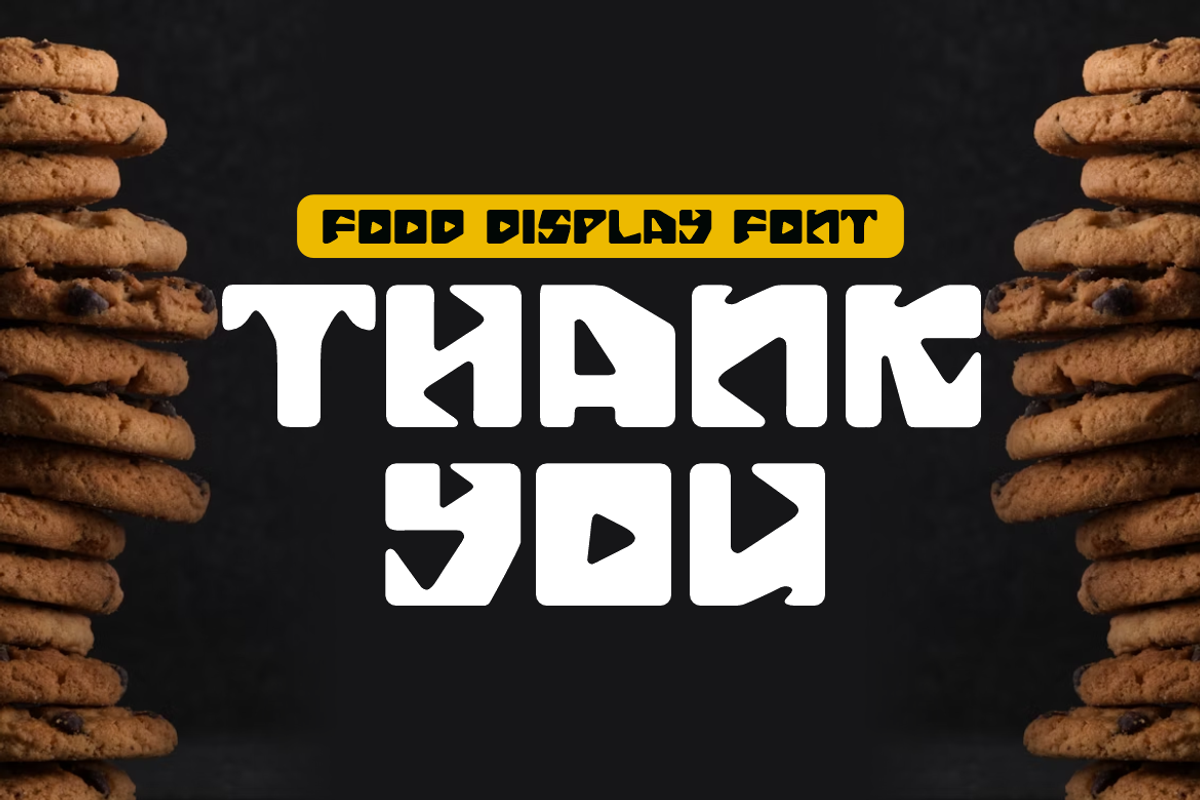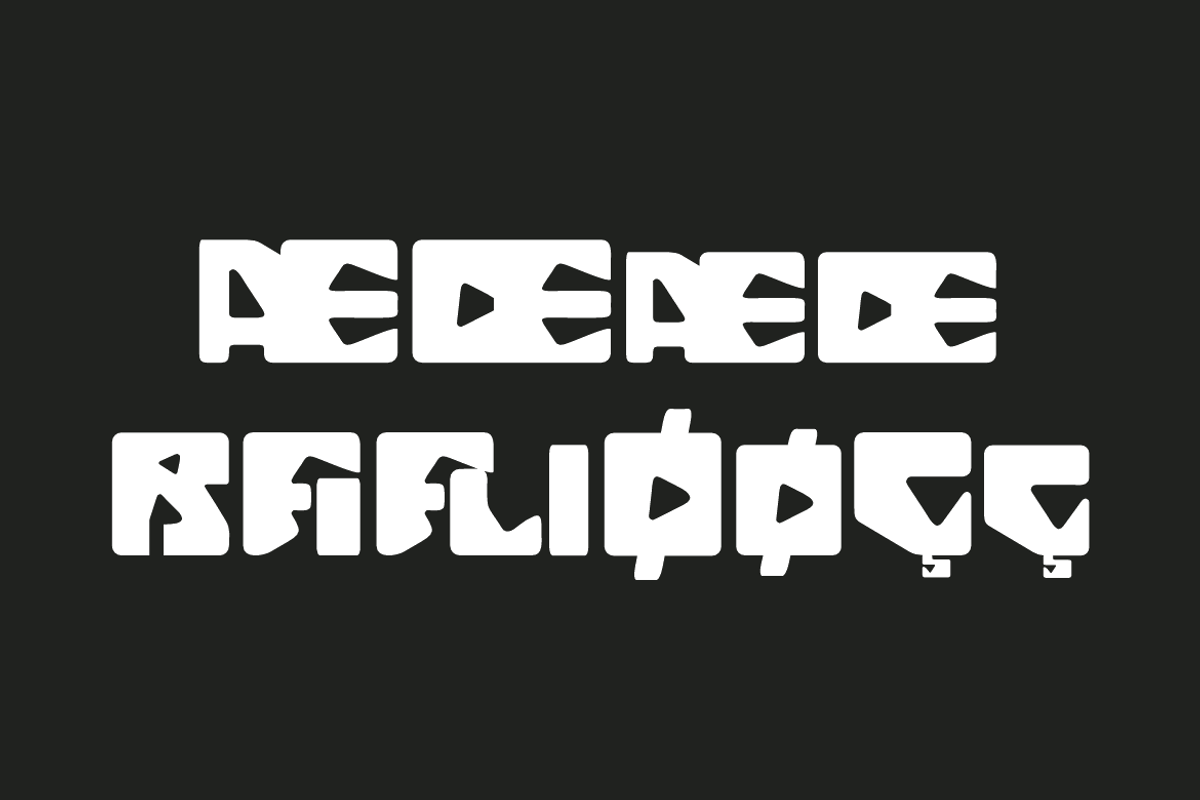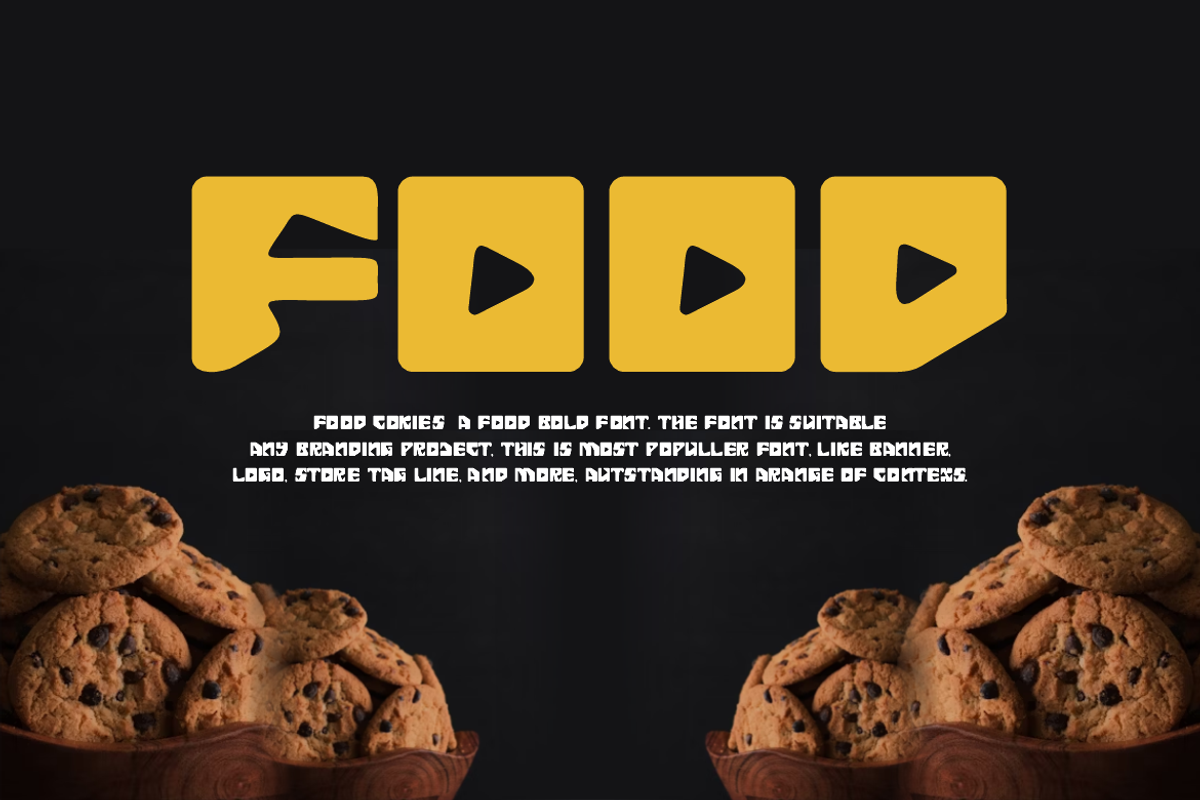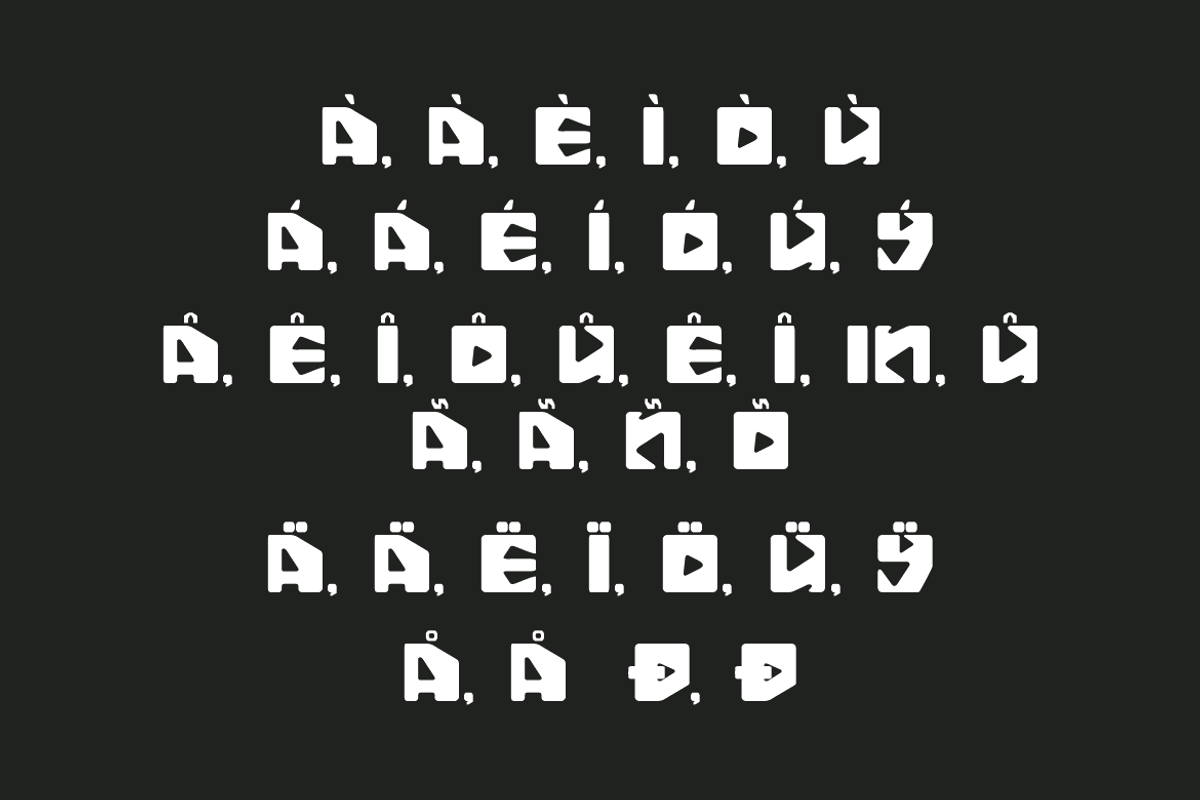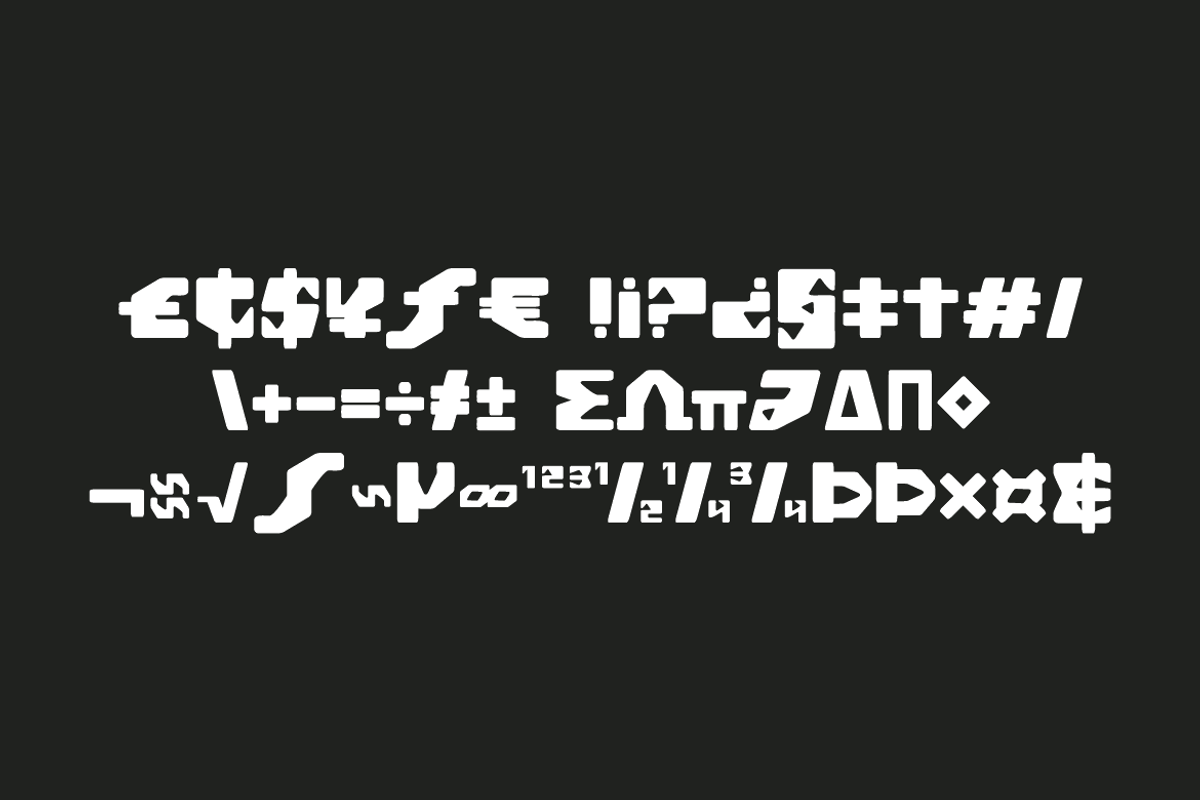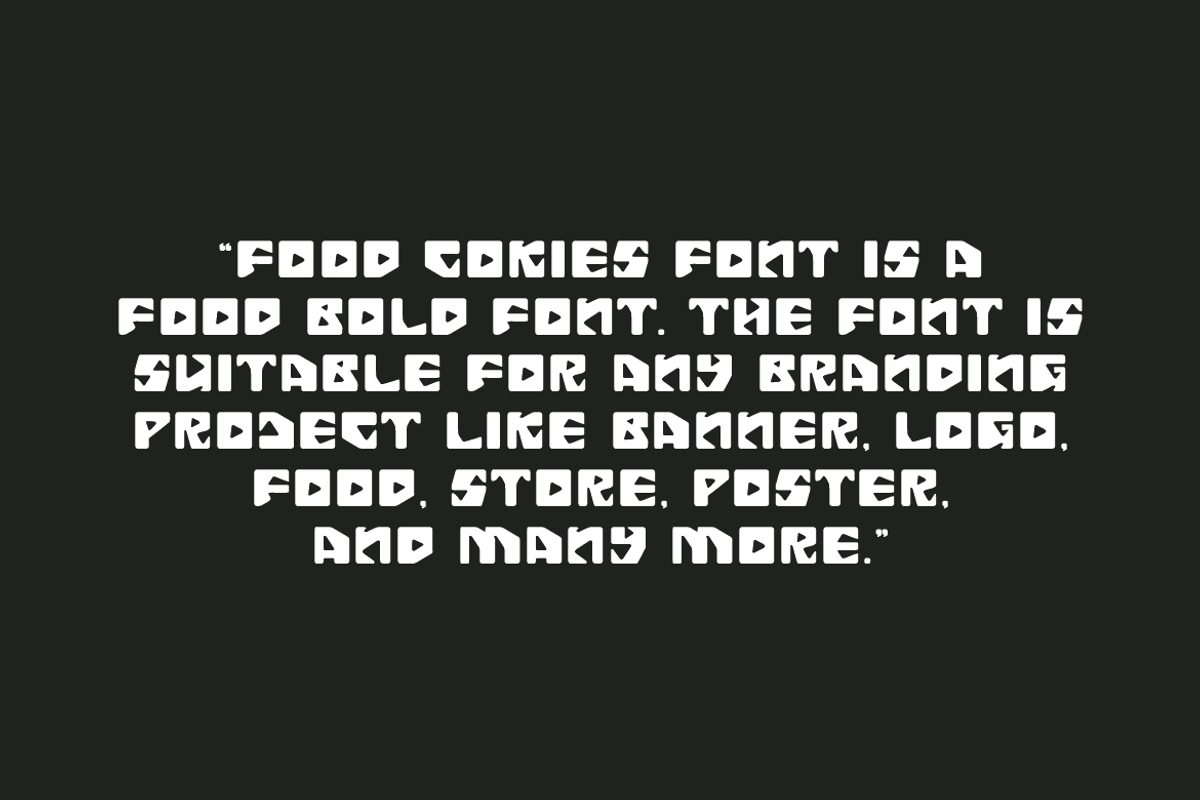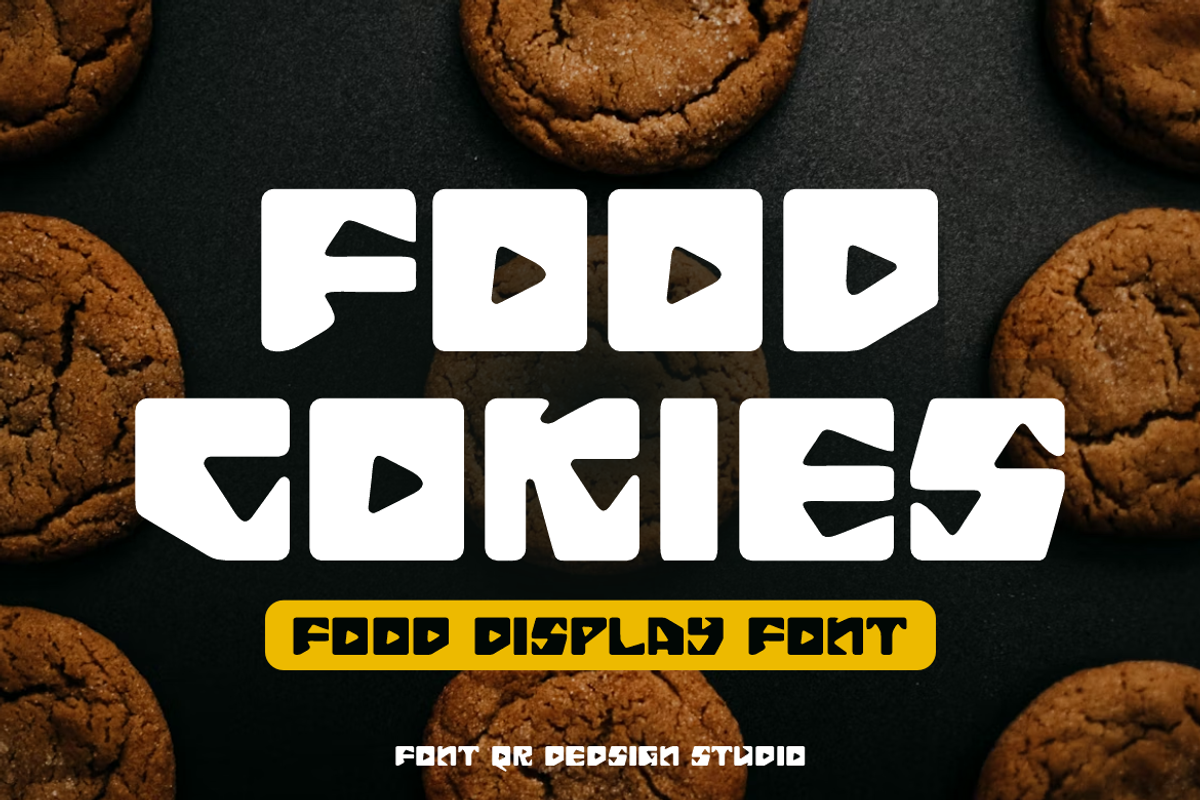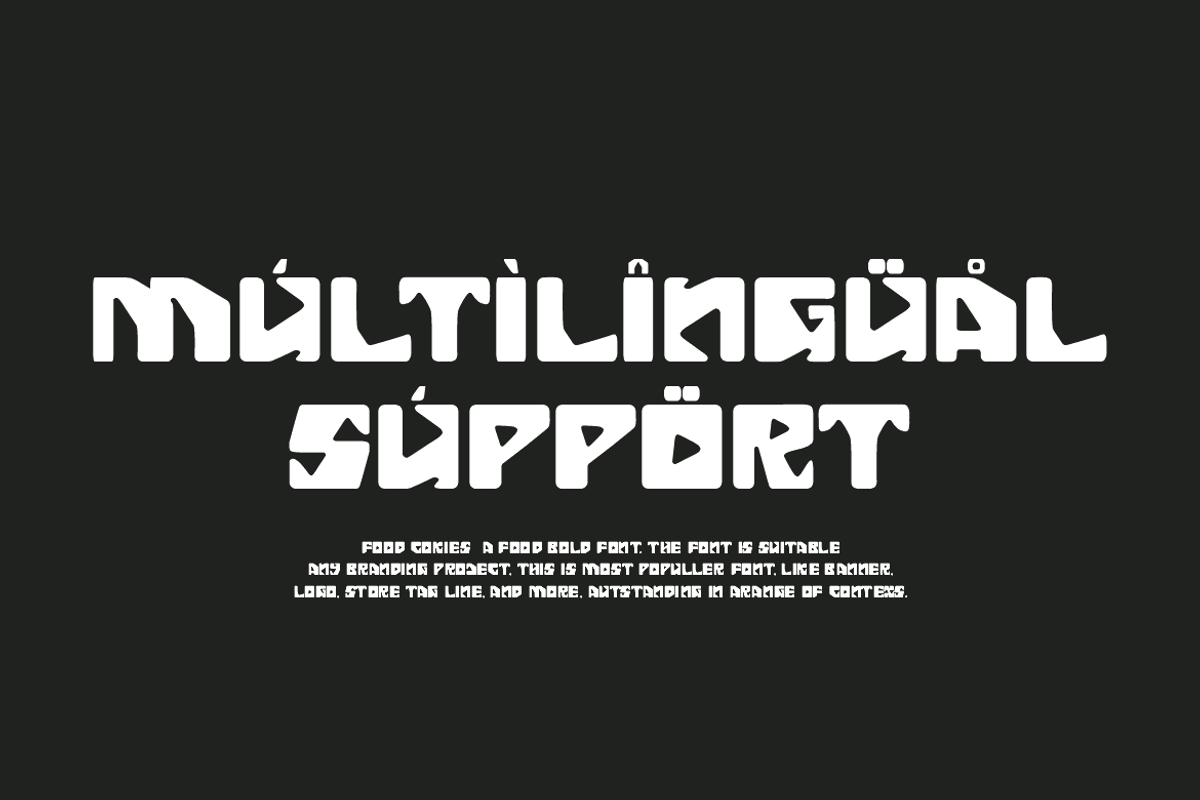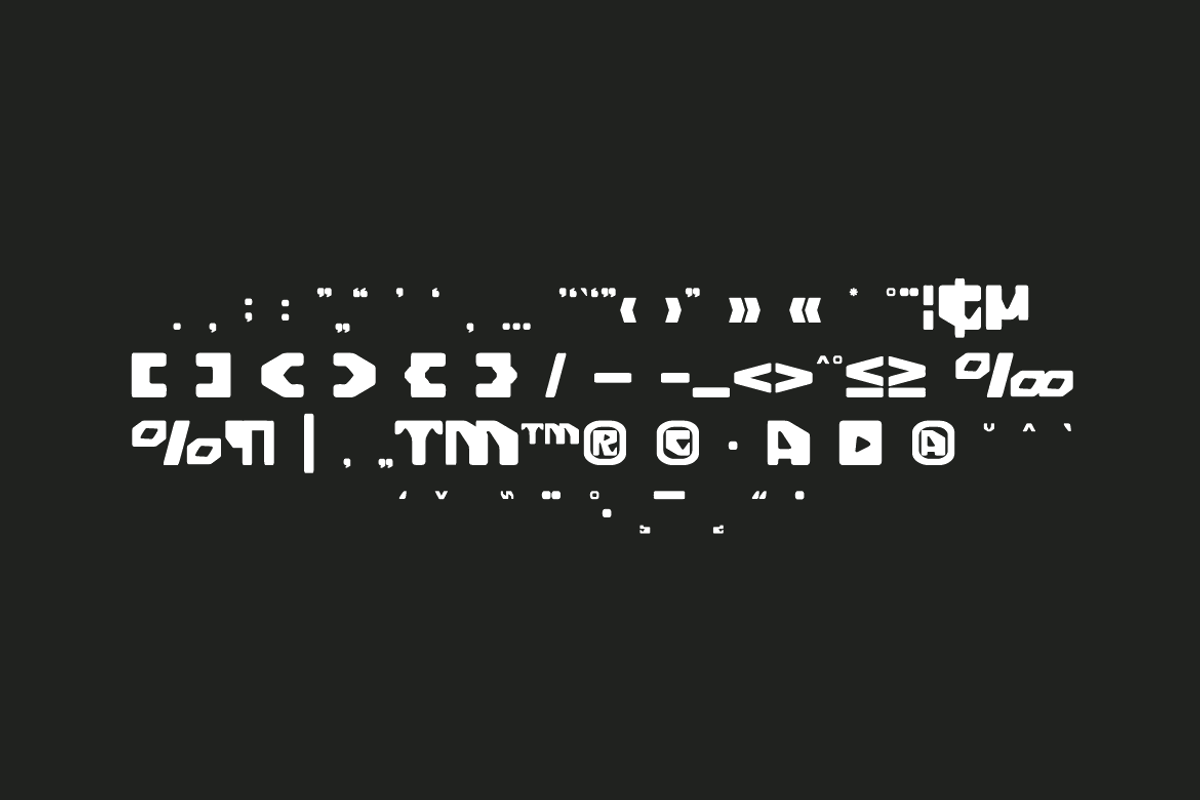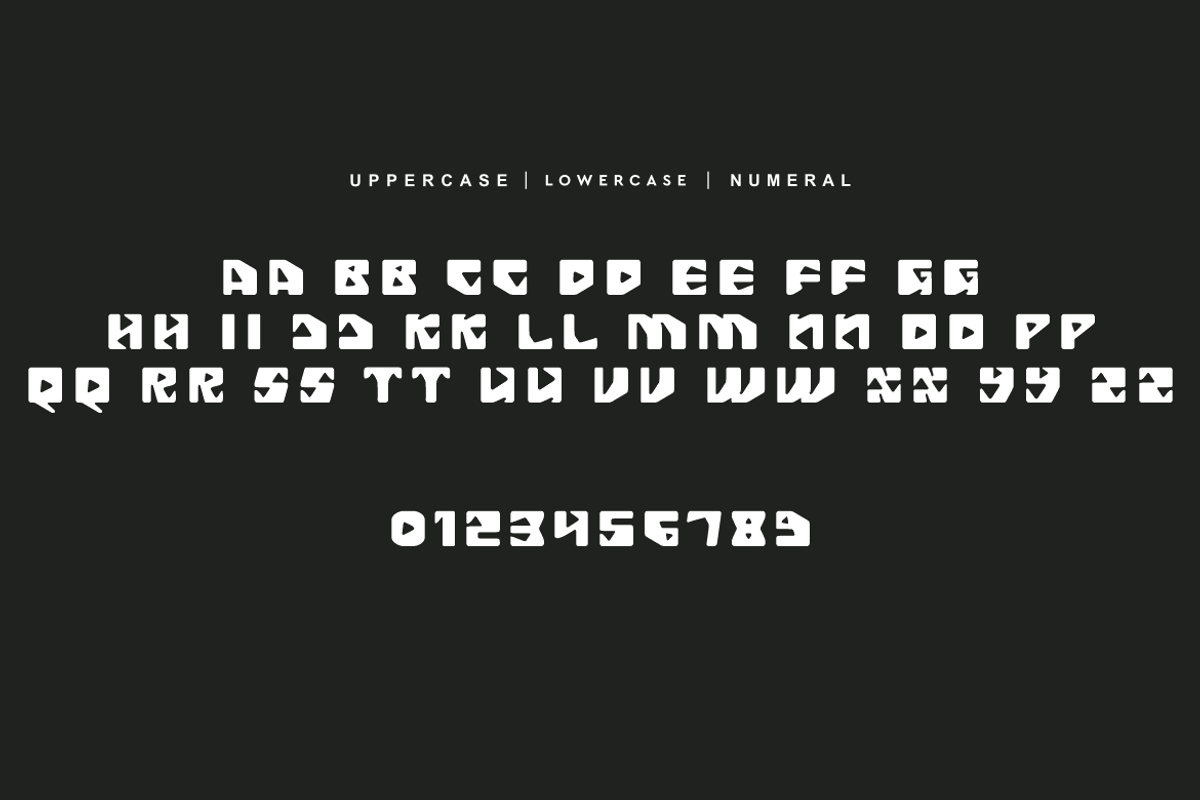
Food Cokies Font
Food Cokies Font is a bold and authentic display font. The font is suitable for any branding project like poster, logo, food, and many more. Outstanding in a wide range of contexts.